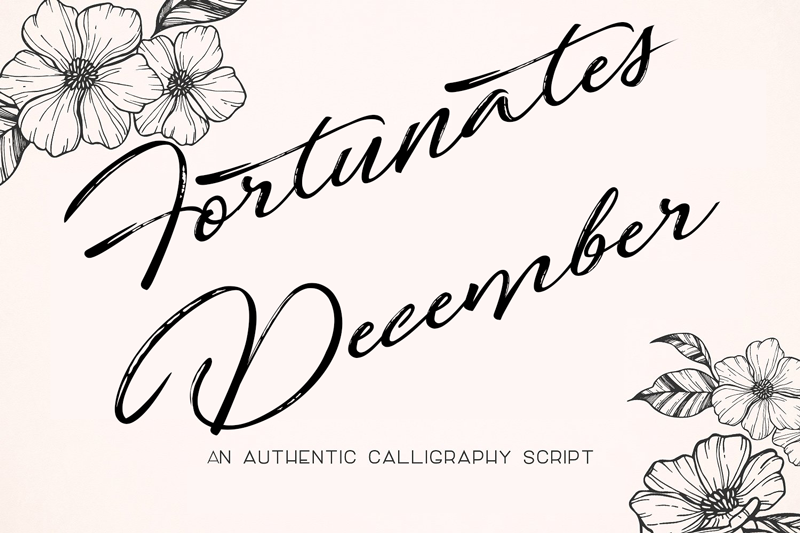
Fortunates December Font
Introducing Fortunates December Script, a beautiful, romantic hand-lettered calligraphy font. Designed and shared by Octotype.